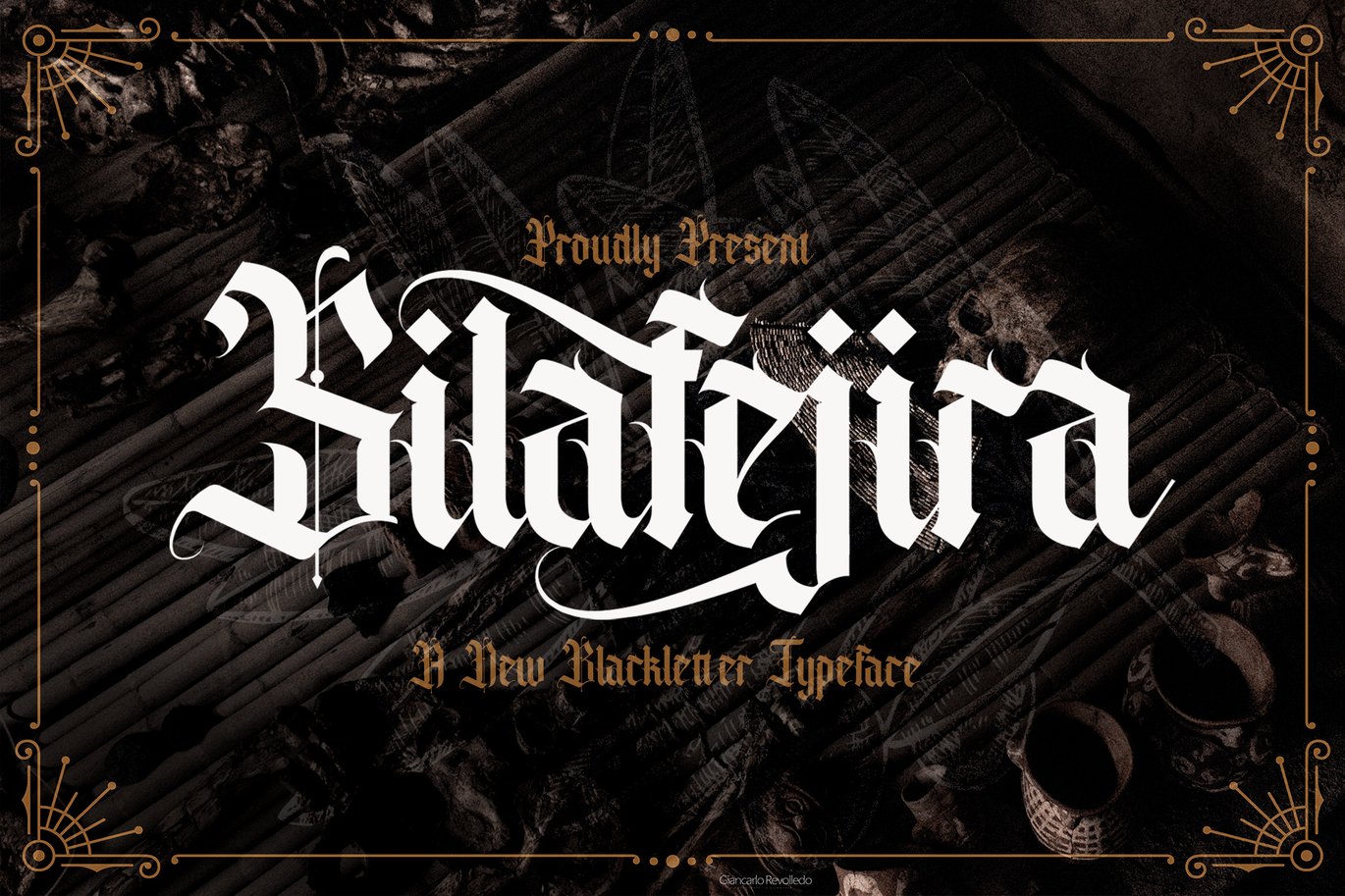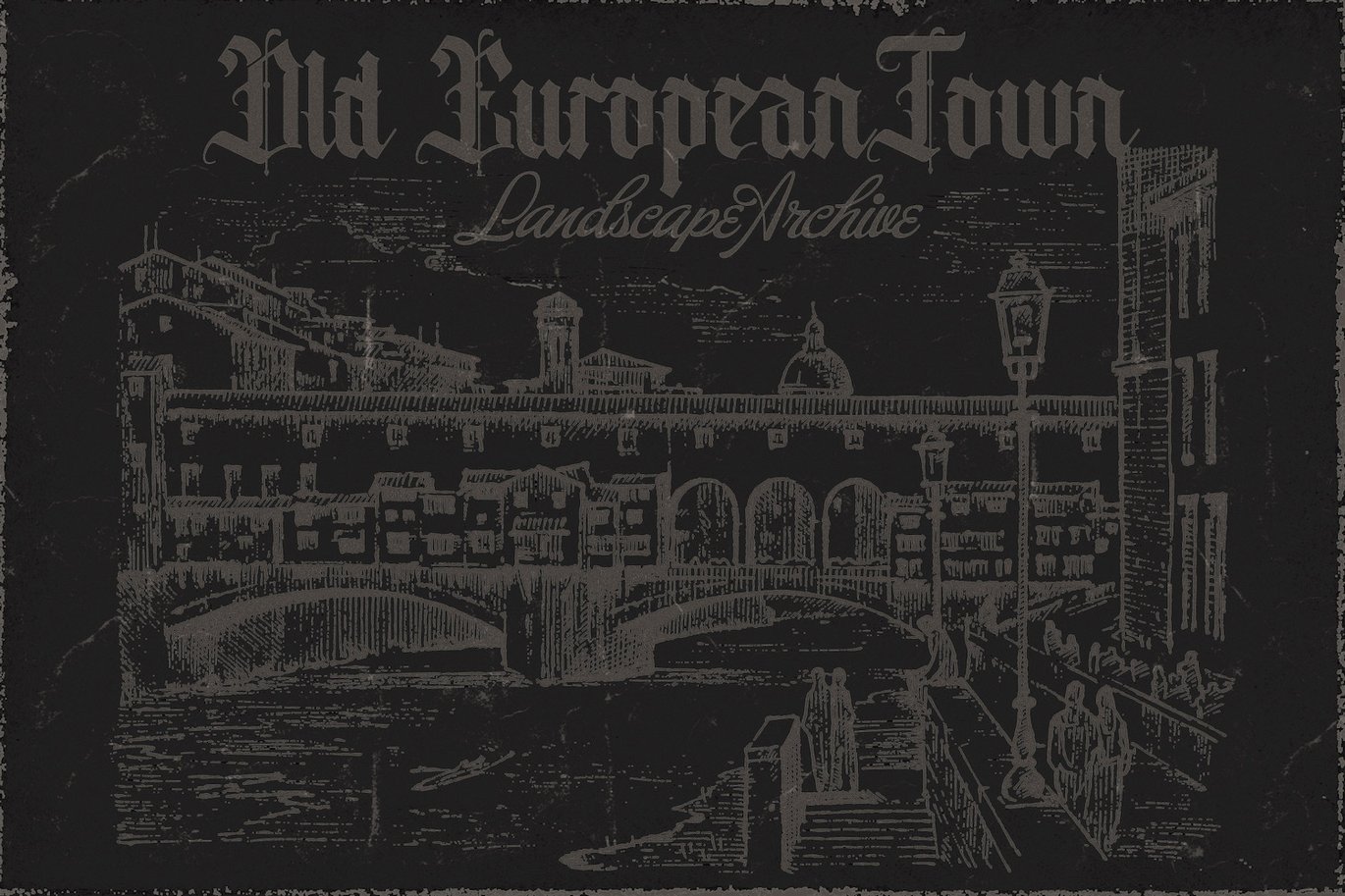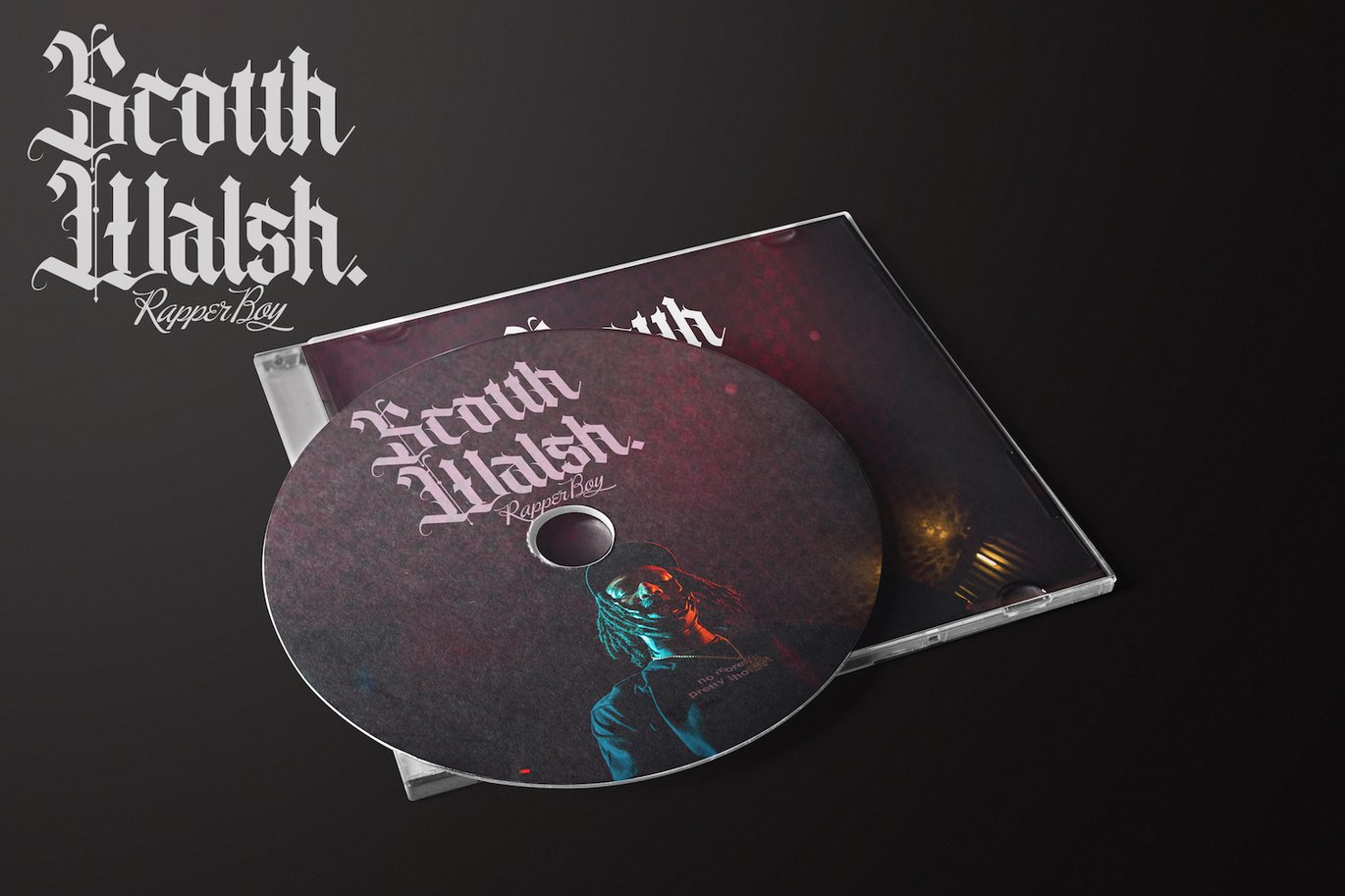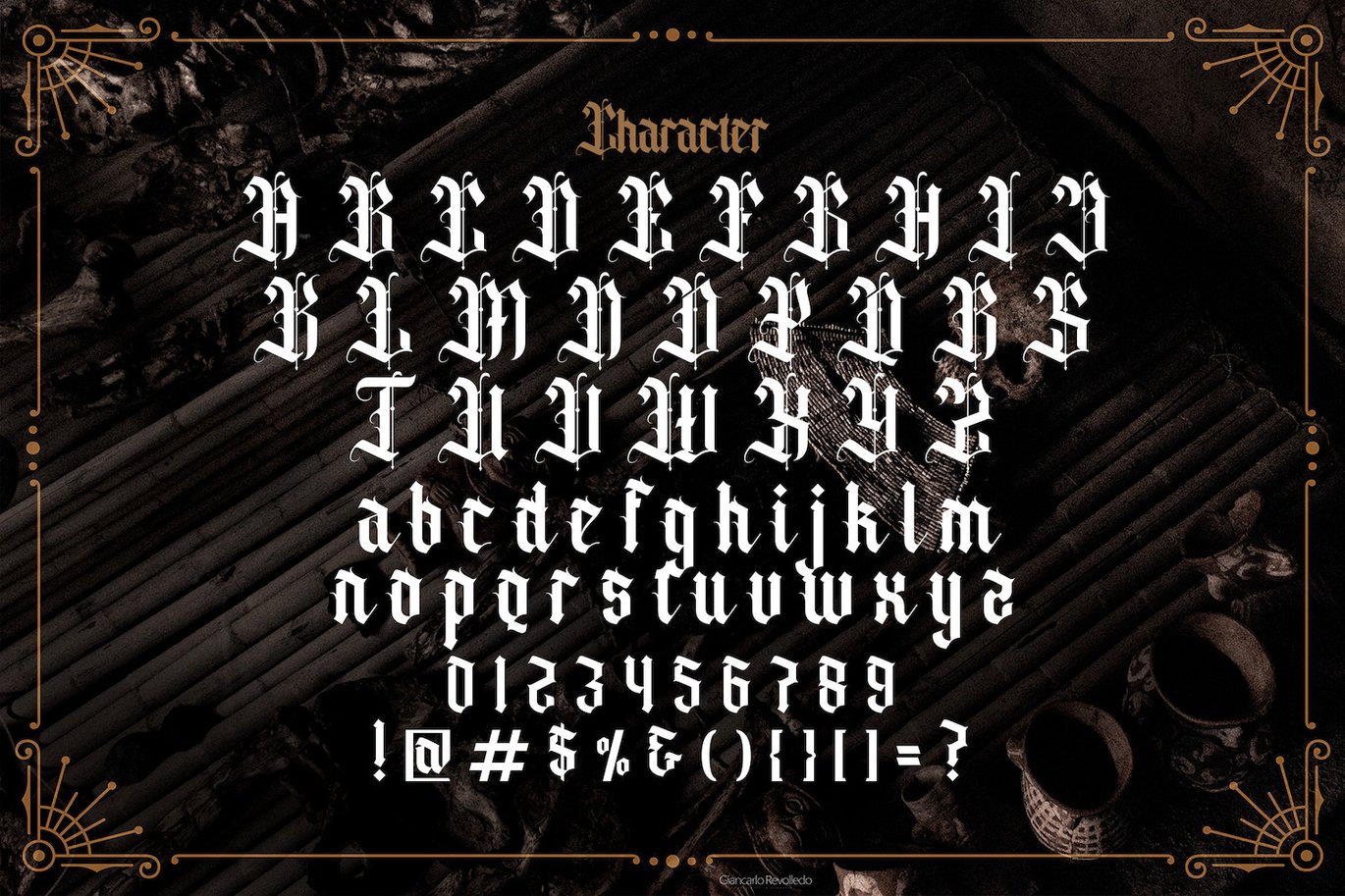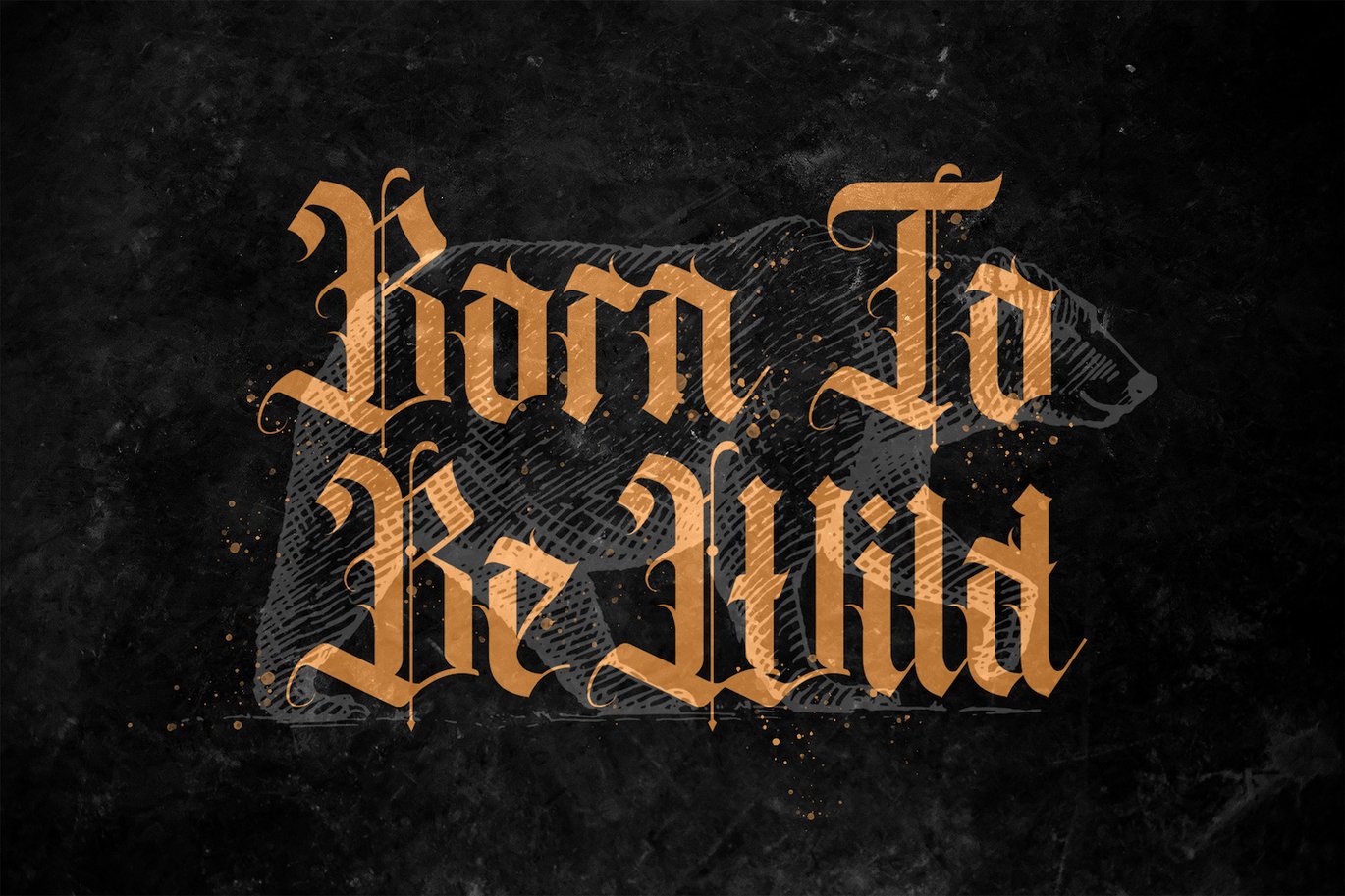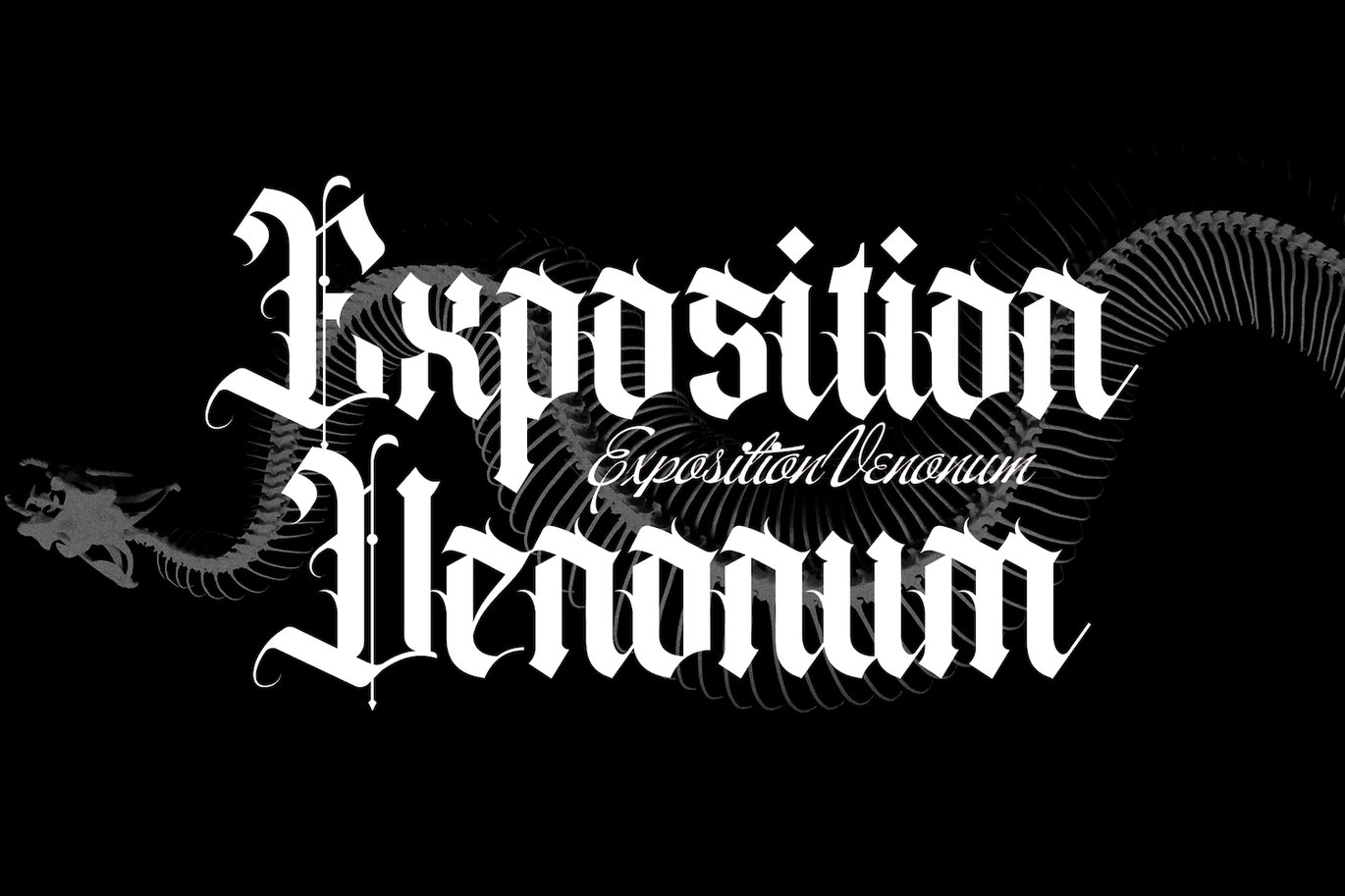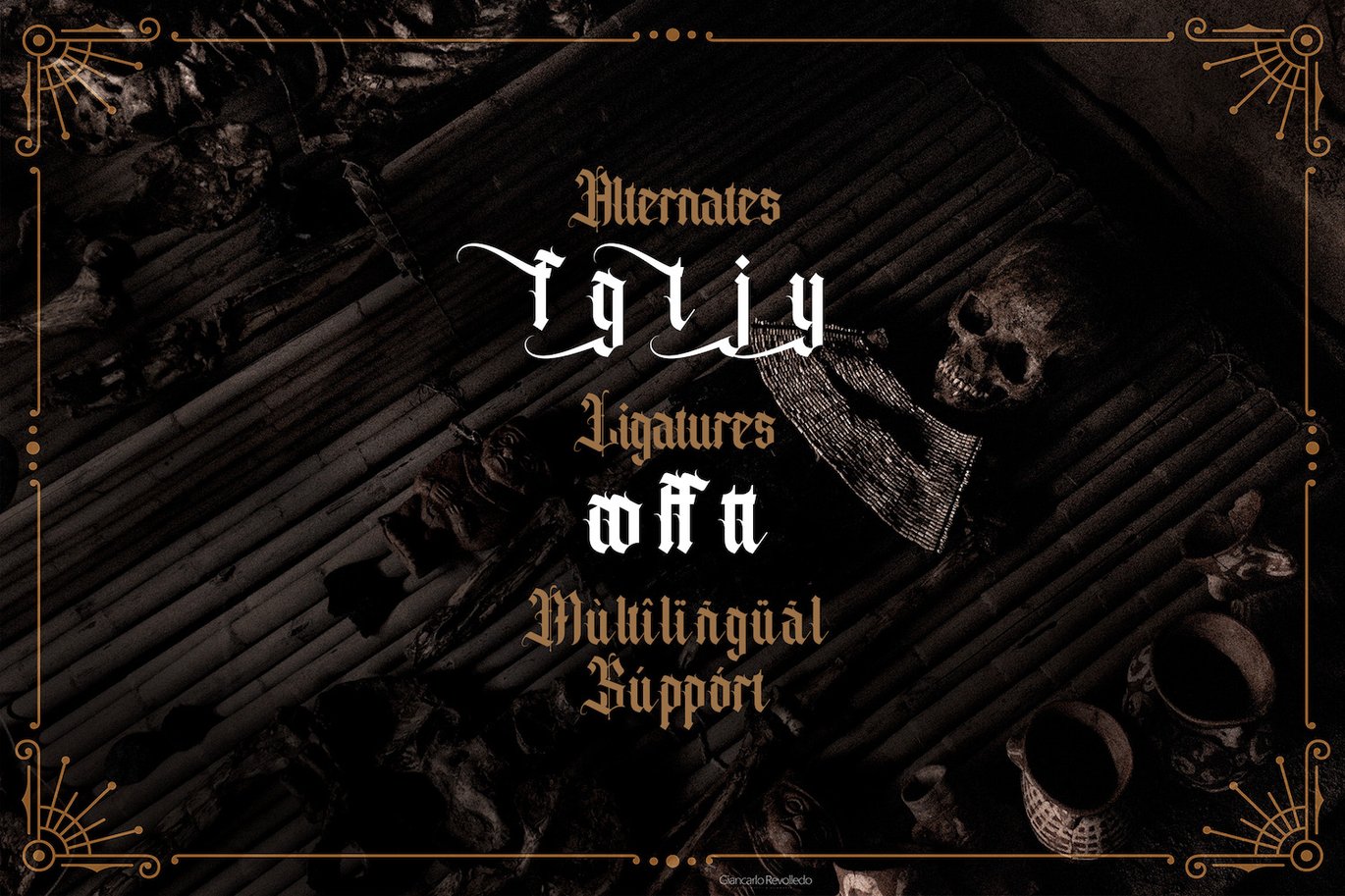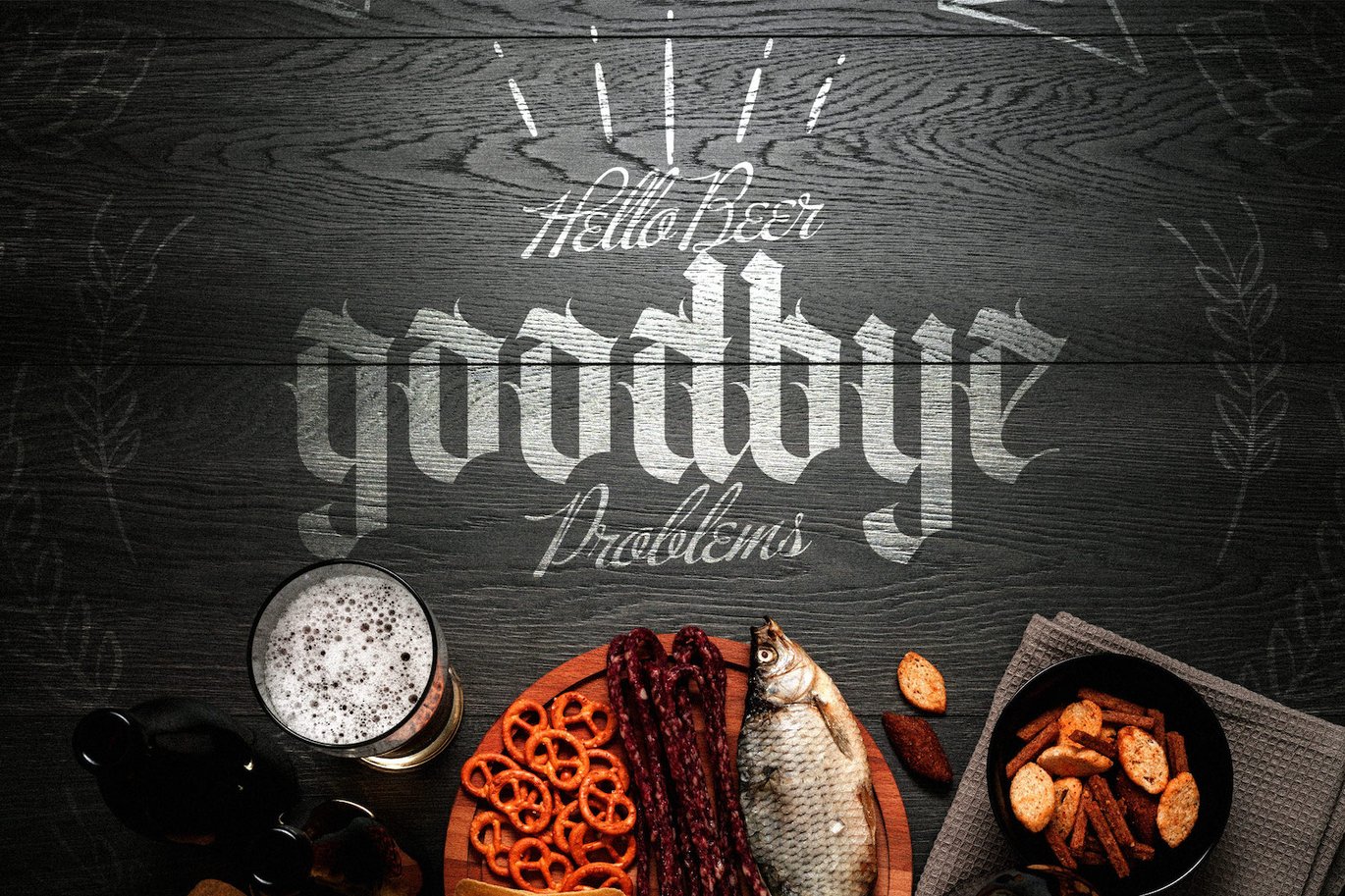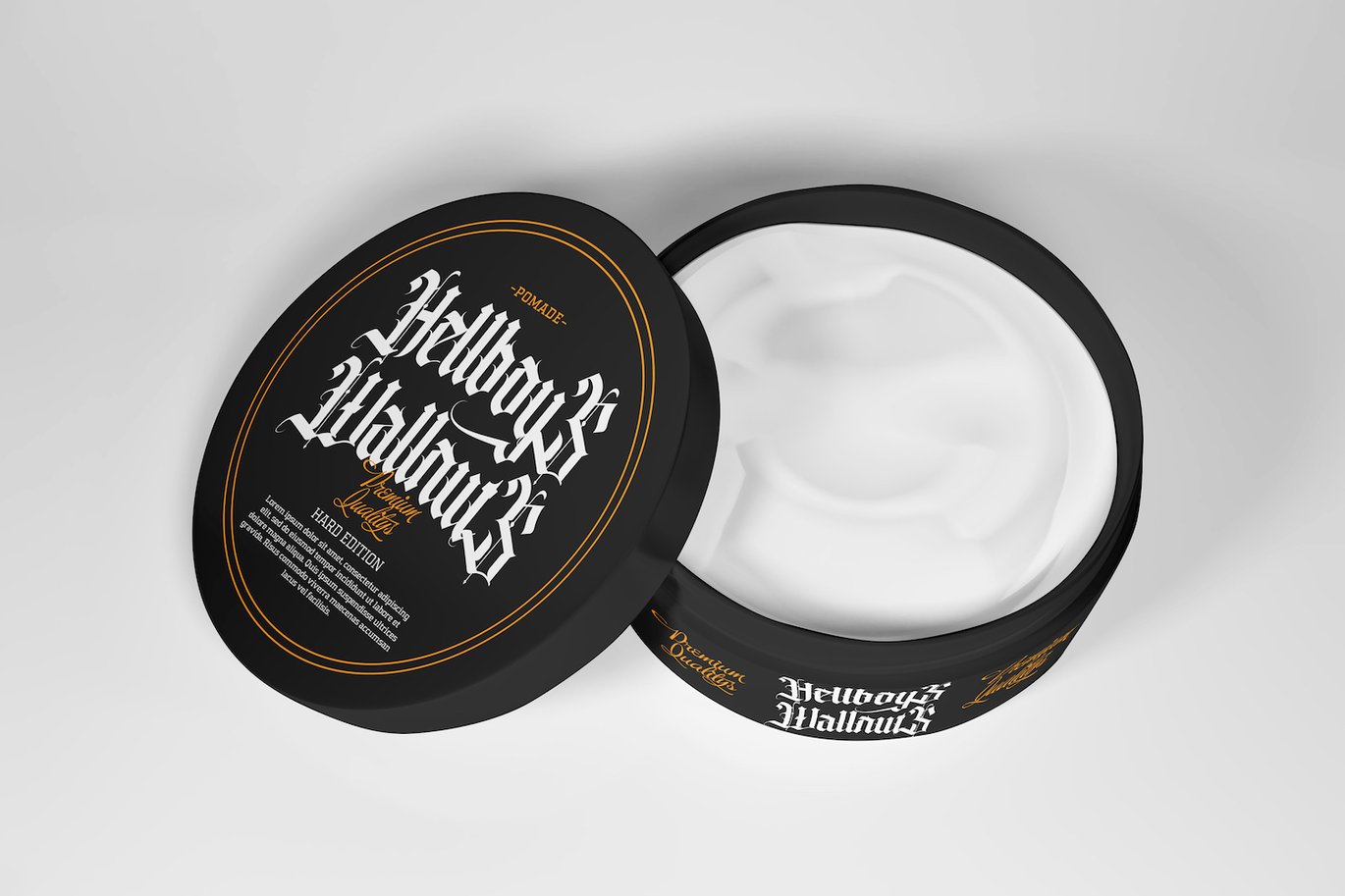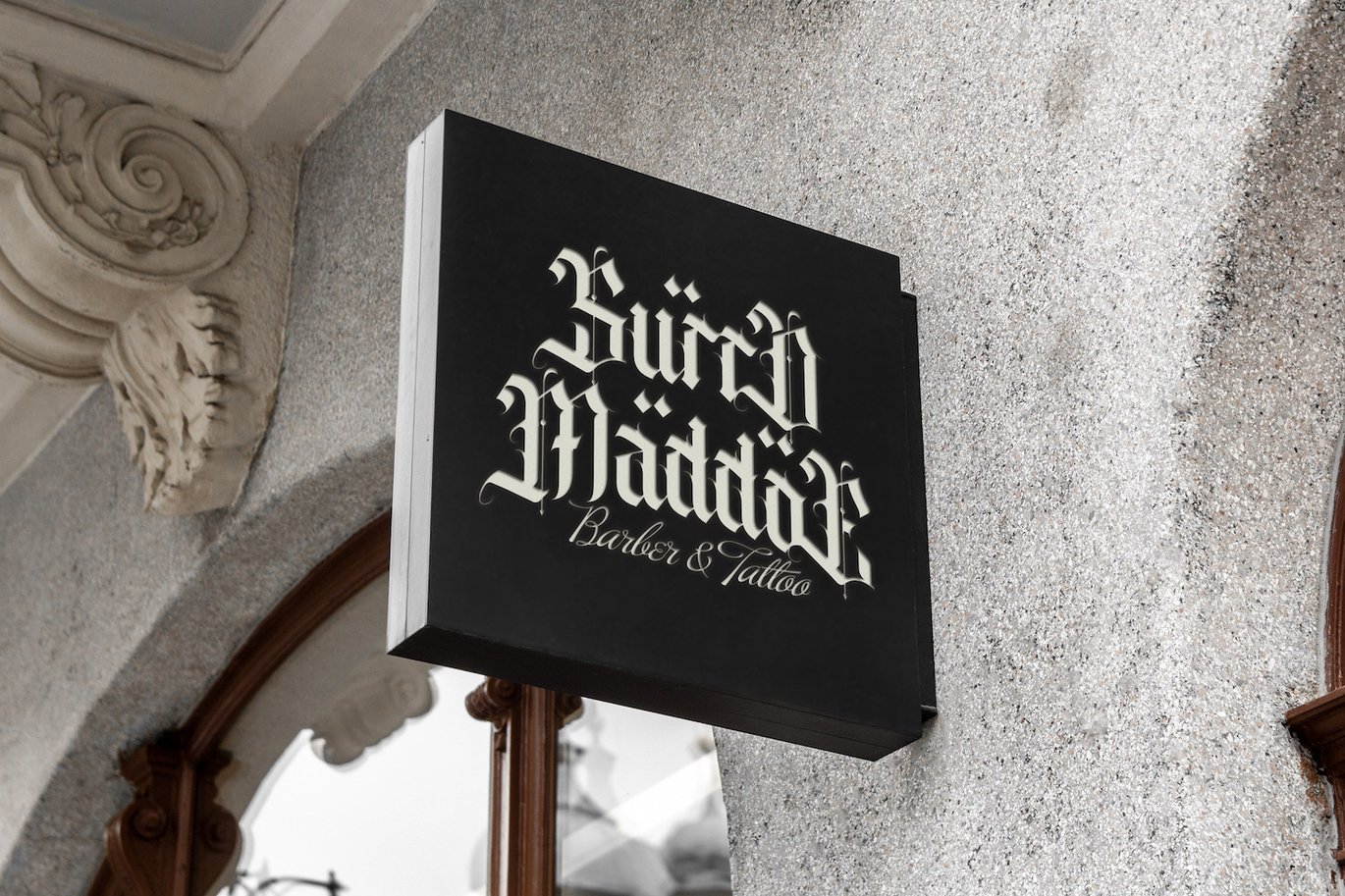
Silafejira – Blackletter Font
Introducing Silafejira – Blackletter Font
Silafejira is an incredibly authentic and daring blackletter font. Add this font to your favorite creative ideas and notice how it makes them stand out!